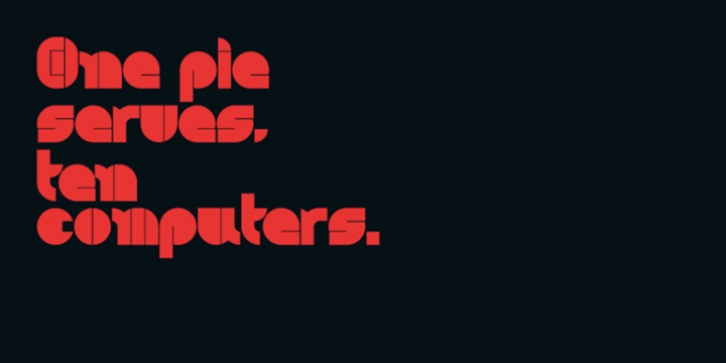
PyeMan was designed by Jonathan Hill and published by The Northern Block Ltd. PyeMan contains 1 style.
PyeMan is a rounded block typeface influenced by home computer games from the 1980s. Examples include Asteroids, Defender and Pac-Man.